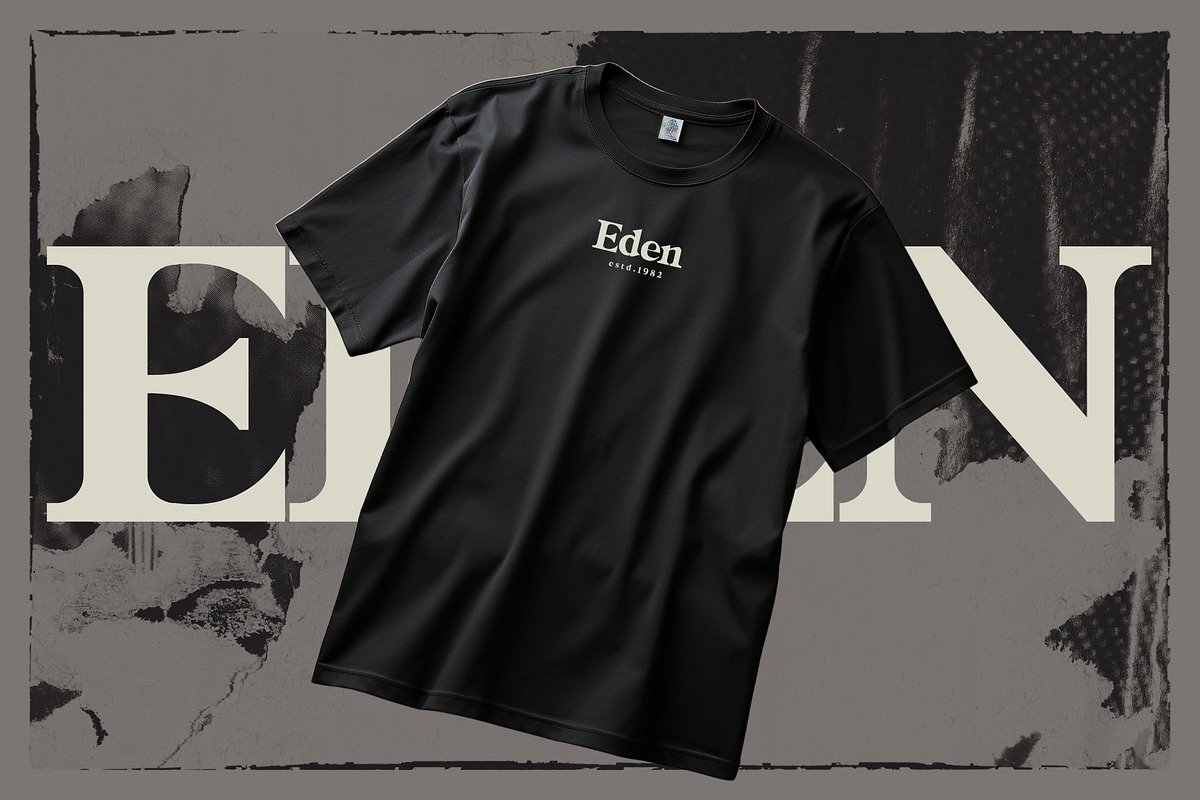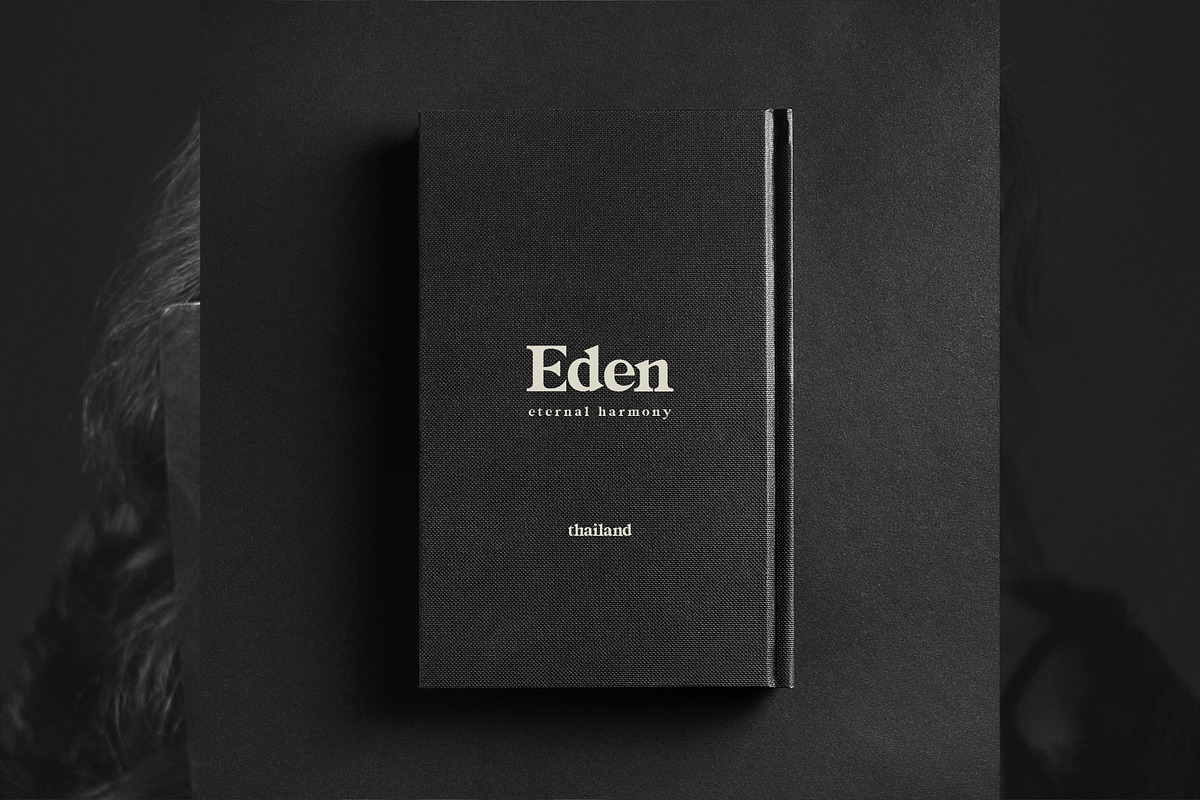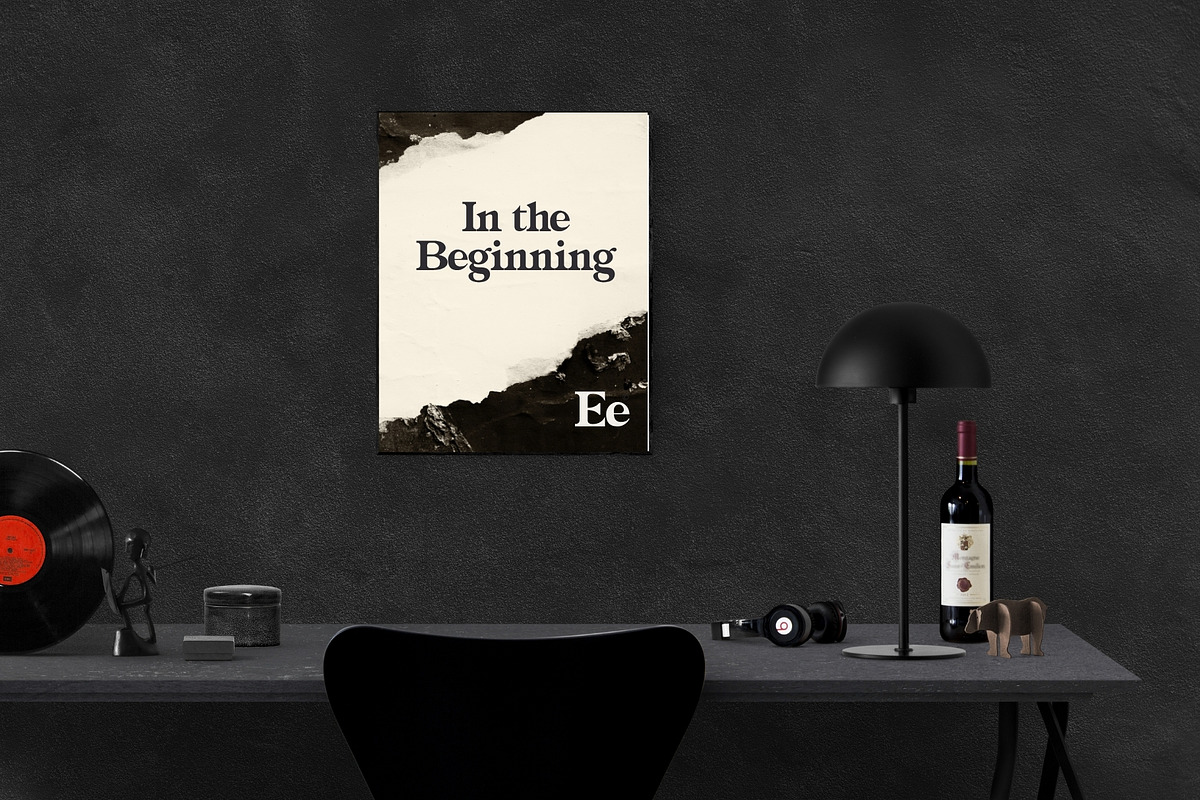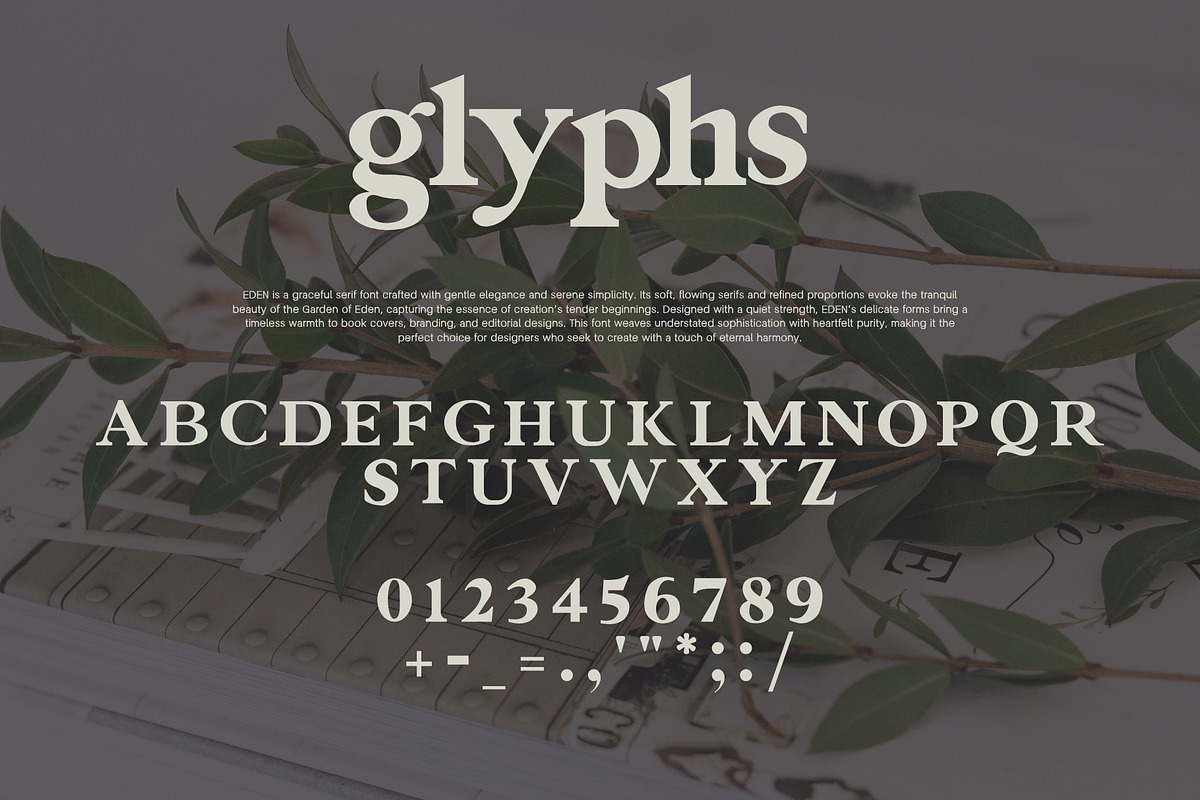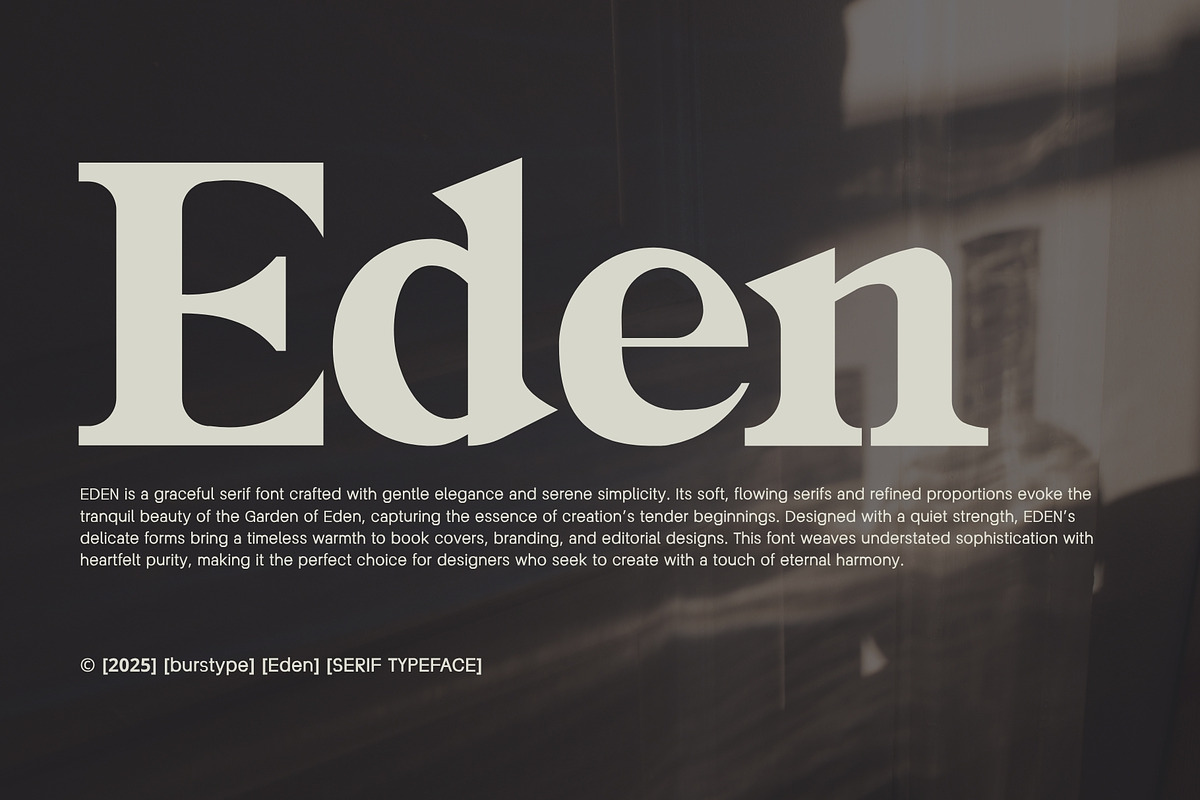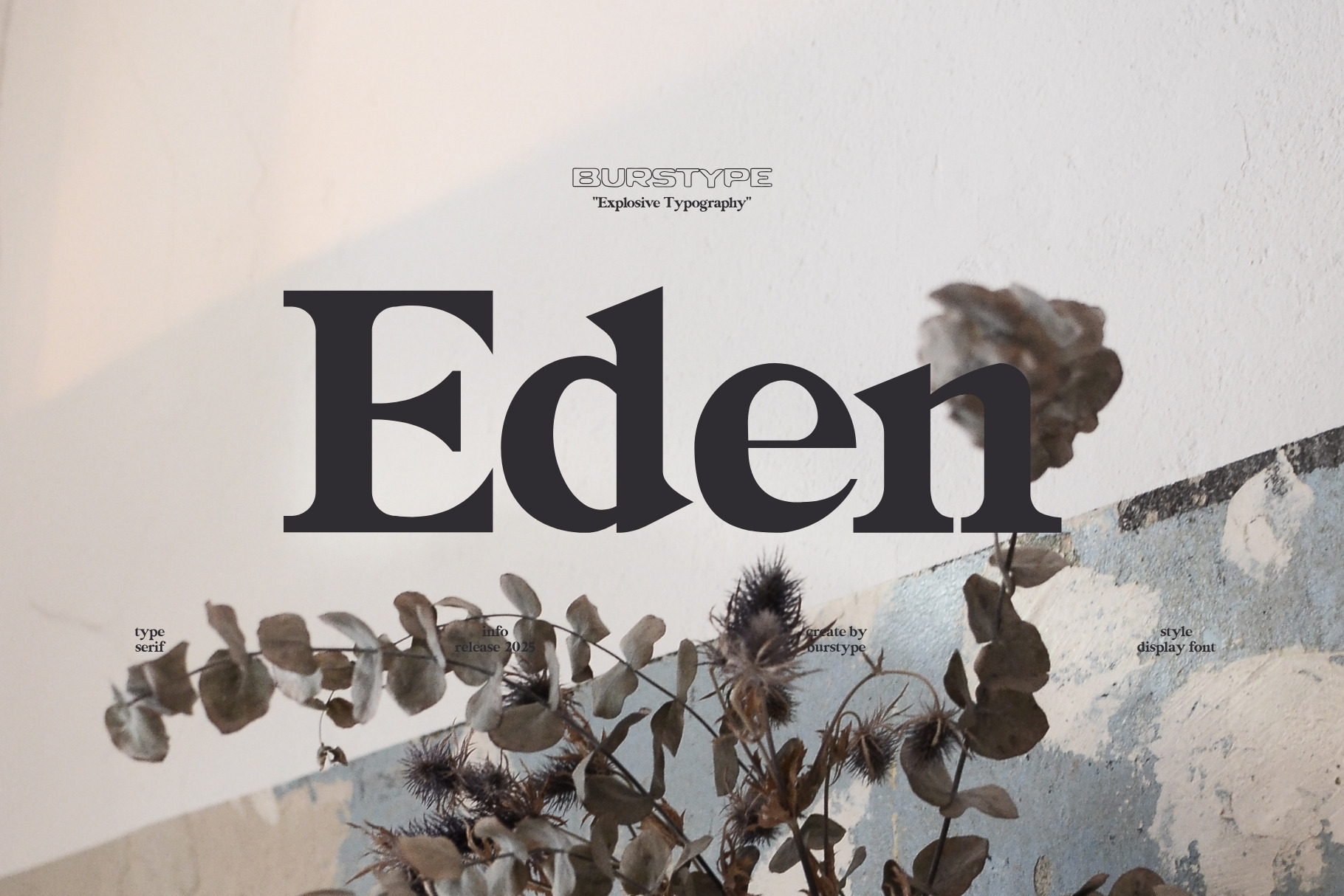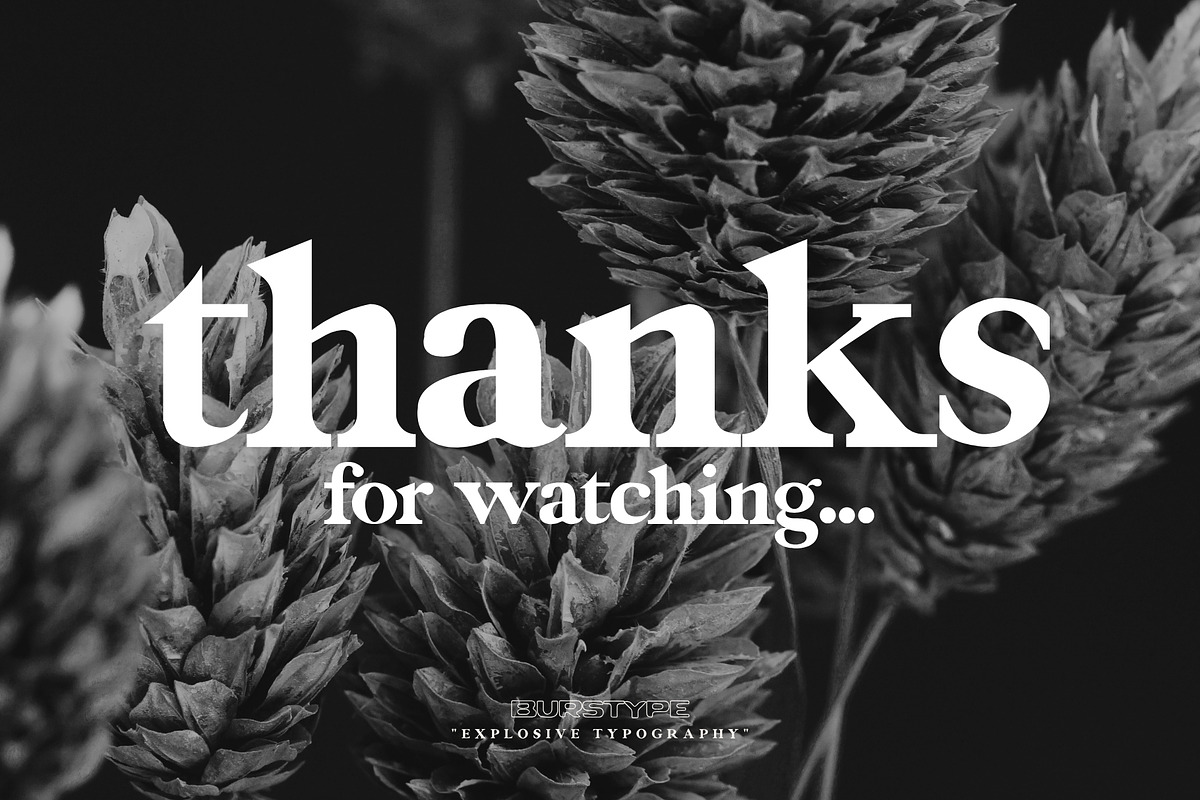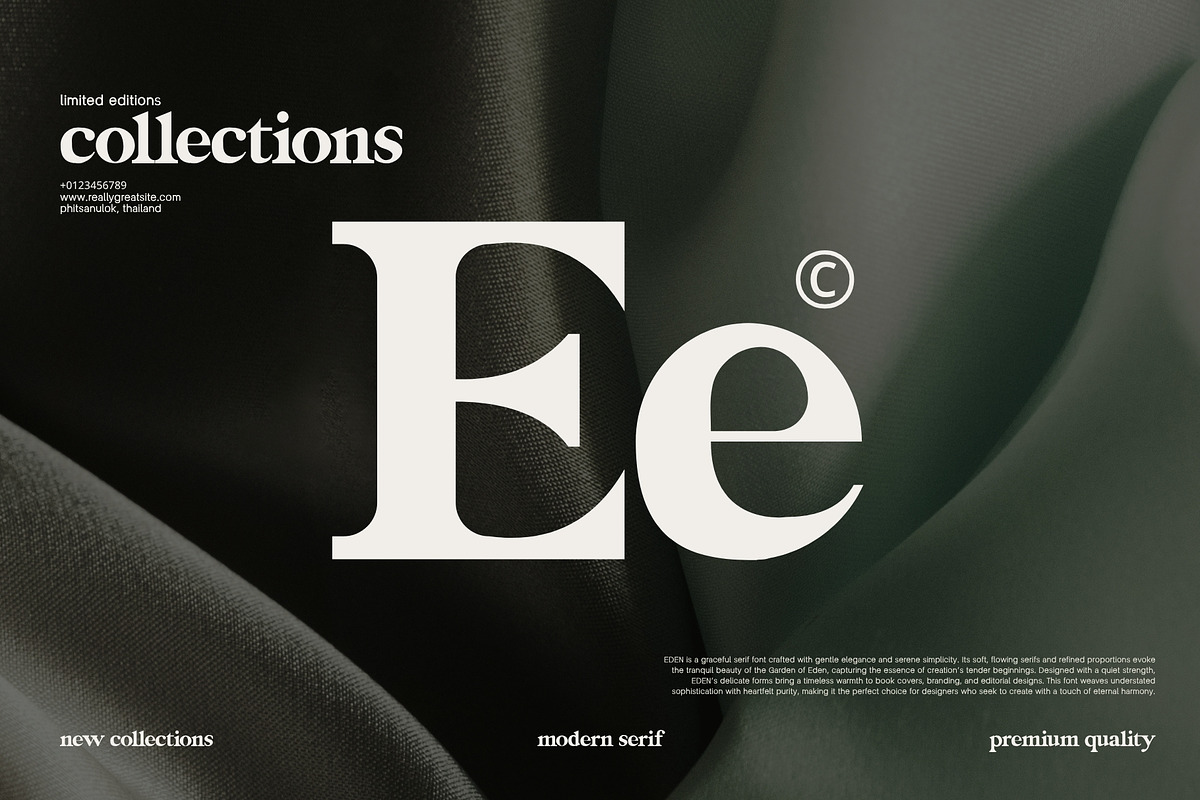
EDEN - MODERN DISPLAY SERIF FONT
Eden is a delicate serif font that radiates the serene beauty of paradise. Its soft curves and minimalist elegance make it perfect for wedding invitations, poetic layouts, or nature-inspired branding. Infuse your designs with Eden’s tranquil, timeless charm.